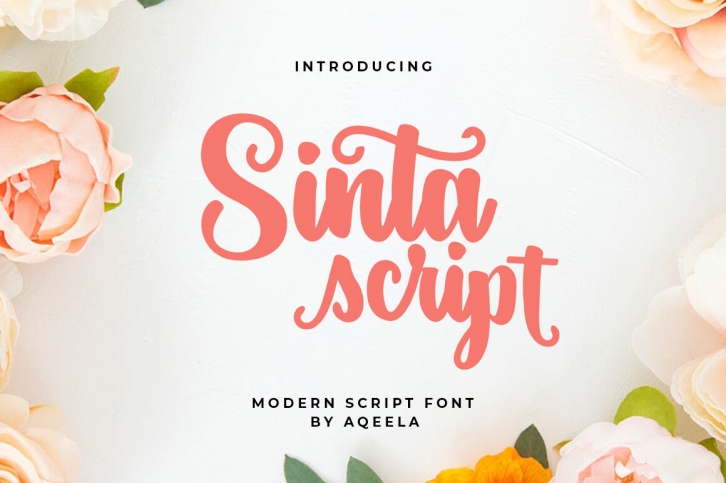
Sinta Script is a modern, brushed and beautiful calligraphy script, ideal for use in elegant designs. This font has a dancing look and adds a lot of femininity to all types of projects.
logos, typographic quotes, magazine or book covers, website headers, clothing, branding, packaging design, and so on, Include Alternatives.